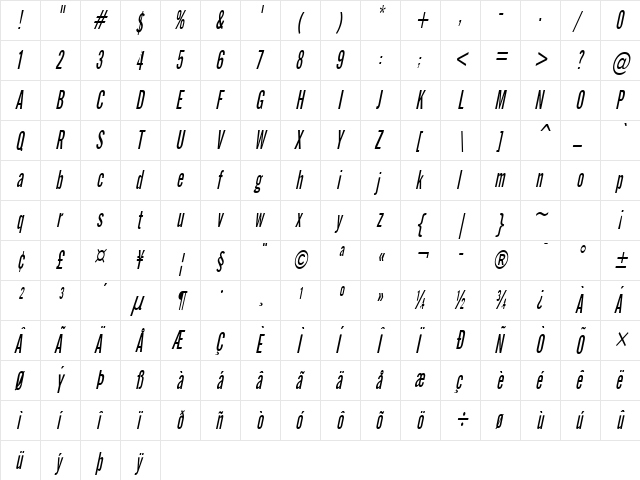
Eng Gothic Thin Italic
Design Context for Eng Gothic Thin Typeface
Eng Gothic Thin takes a clean, functional approach — its unadorned letterforms prioritise legibility and work reliably across screen and print environments. The slanted form adds forward momentum and visual energy. Its slender proportions lend an understated elegance to any composition.
A natural fit for high-end product packaging, luxury brand identities, and refined web typography.
Font Pairing: Pair Eng Gothic Thin with a medium or bold serif for headlines — the weight contrast creates an elegant, high-end feel.
Pro Tip: Use Eng Gothic Thin with generous tracking and line-height for the most luxurious effect — light sans-serifs reward spacious, considered layouts.